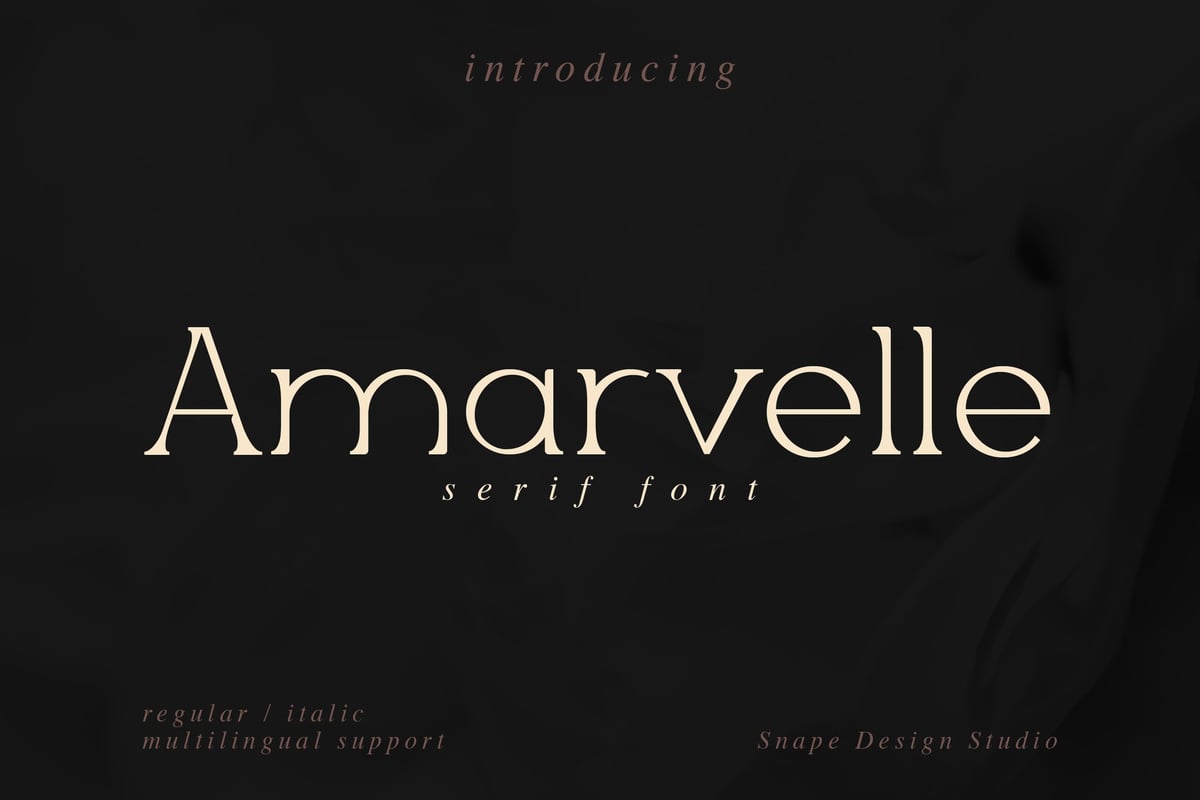
Amarvelle - Serif Font
Elevate your designs with Amarvelle, a sophisticated serif font that embodies timeless luxury and refined elegance. Featuring sharp, graceful letterforms and perfectly balanced proportions, this distinguished typeface seamlessly blends classic aesthetics with contemporary sophistication. Amarvelle commands attention while maintaining an air of exclusivity that enhances any premium design project. This versatile serif excels in high-end branding applications, editorial layouts, fashion campaigns,...